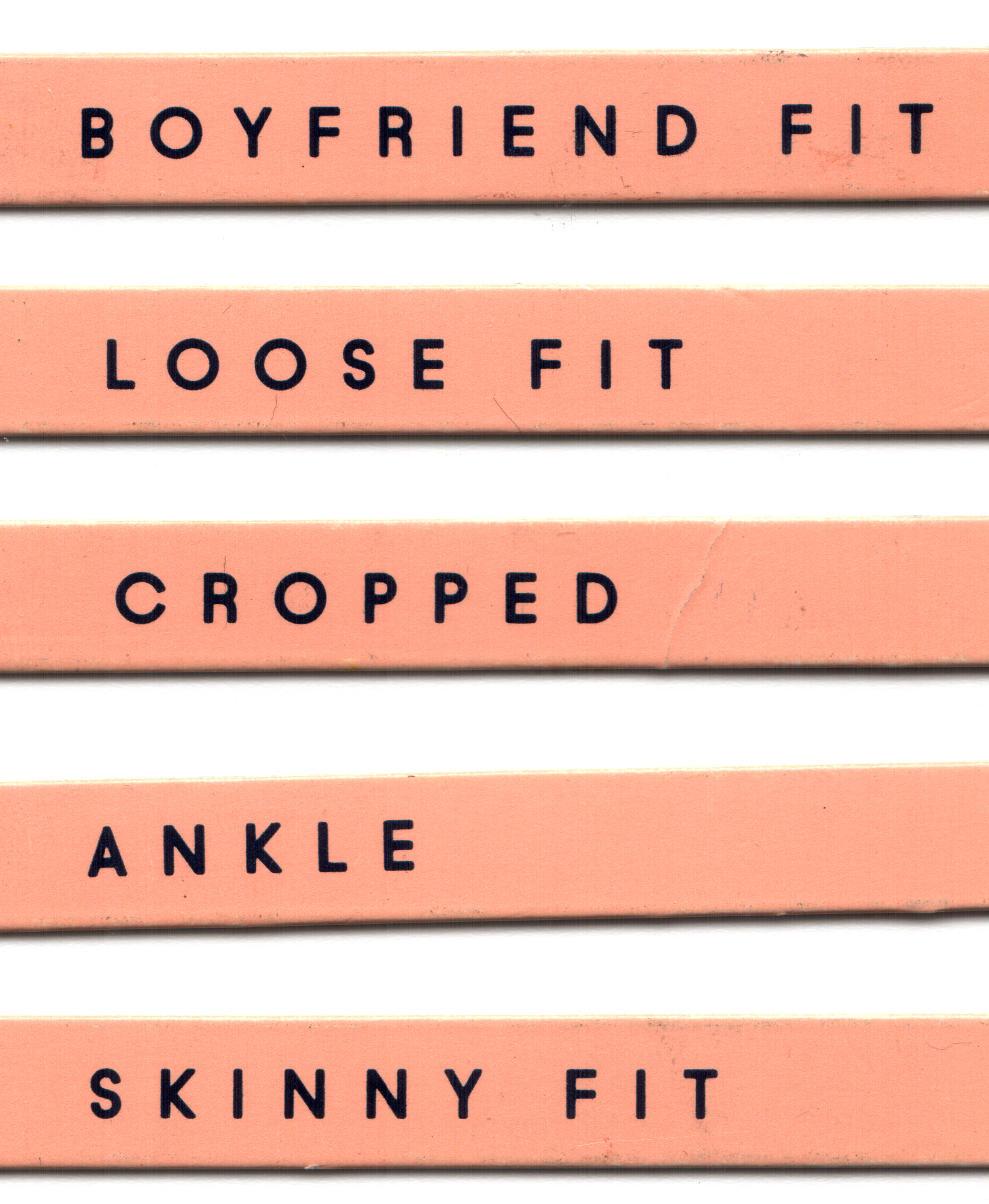
Similar to Le Havre Regular. Put it in ALL CAPS and d o u b l e s p a c e d, and it should be close.
Shohel, I’ve looked and searched using the Matcherator (here), WTF at MyFonts, and WhatFontIs and haven’t found this font. It looks at first glance a lot like Futura, but there are key differences: the two bowls of the B are identical (not so in Futura); the two loops of the S are equal (not so in Futura); and the leg of the R curves away from the bowl and descends in a vertical line (not so in Futura). Basically, it’s a Helvetica R, but this clearly isn’t Helv. Other things I looked at are: the legs of the K meet at a right angle at the middle of the stem; the letters are, for the most part, on the narrow side; the curved sides of the B, P, and D meet the stem with just a very short straight segment, almost at a tangent point; all three arms of the E are the same length; and the O is circular (like Futura).
Also similar to RM Softsans. D o u b l e s p a c e it and it should look good.